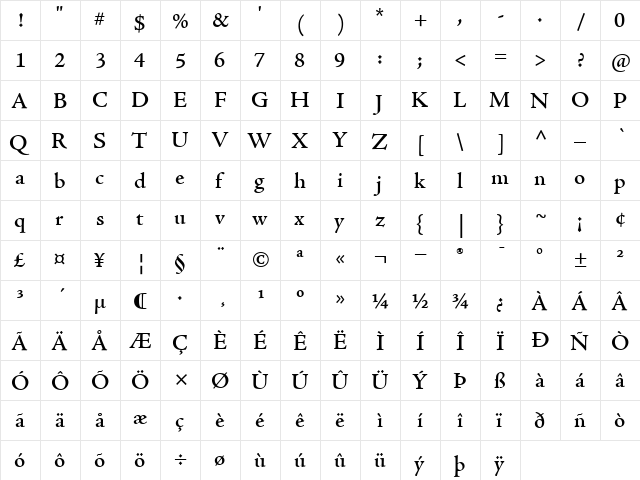
AdobeJenson-SemiBold Semi Bold
Design Context for AdobeJenson-SemiBold Typeface
AdobeJenson-SemiBold offers clean, dependable letterforms without strong stylistic allegiance, making it a practical choice for designers who need flexibility. The heavy weight commands attention and anchors typographic hierarchies.
Pro Tip: Use AdobeJenson-SemiBold in both headline and body roles to test its range before committing to a single application.